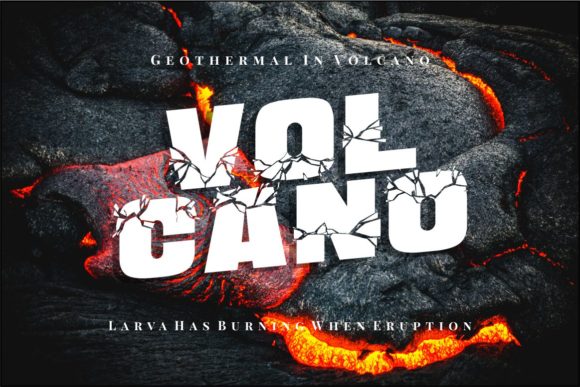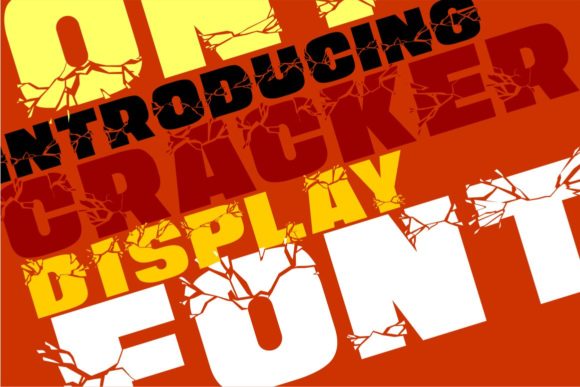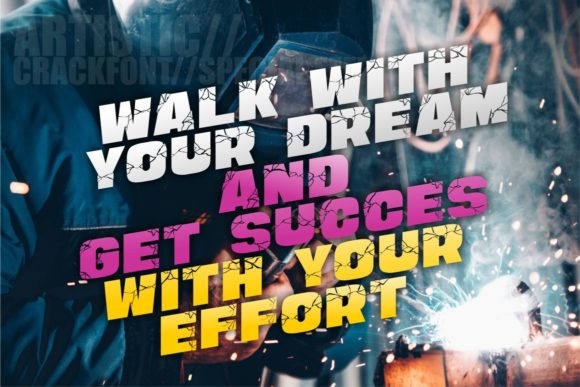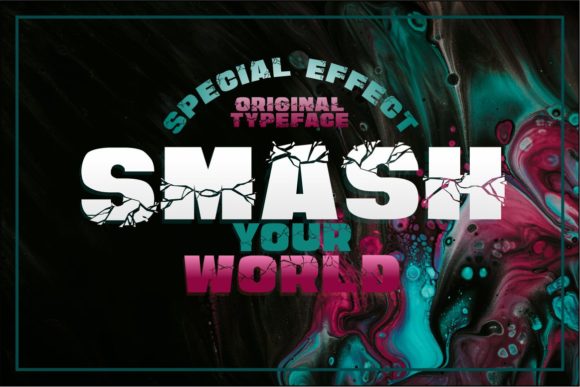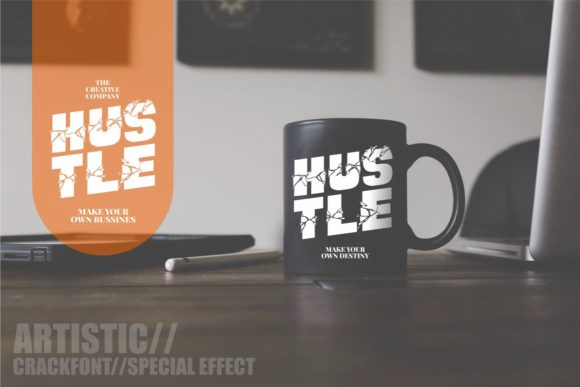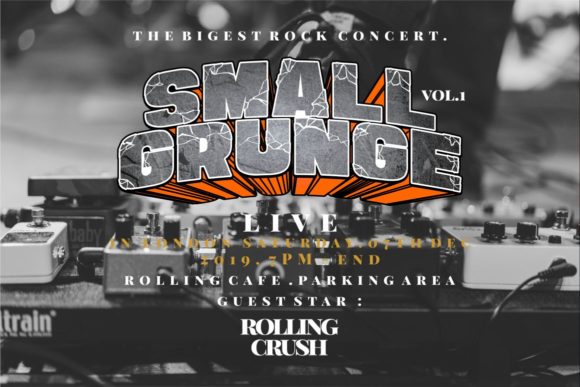
Introduction to Smash Wall Font
You know that moment when you’re working on a creative project and you’re stuck for the perfect font? The one that will make your design pop and leave a lasting impression? That’s exactly what happened to me when I stumbled upon the Smash Wall Font.
This bold, smashed, and rough display font has a unique, splattered feel that’s perfect for adding a touch of edginess to any design. With its high-quality design and transparent background, Smash Wall Font is a valuable resource for designers looking to elevate their creative projects.
Key Features of Smash Wall Font
- Perfect for graphic designers, artists, and anyone looking for a unique font
- Features a bold and edgy style with a high level of detail
- Includes a comprehensive character set, including uppercase and lowercase letters, numbers, and punctuation
Honest Review: Smash Wall Font
As a designer, I’m always on the lookout for unique and high-quality fonts to add to my design resource library. I recently came across the Smash Wall Font, and I must say, it’s a great addition to any creative project.
- The font is incredibly versatile and can be used for a variety of design projects, from logos to posters.
- The high-quality design ensures that the font looks crisp and clear on any medium.
- The transparent background option makes it easy to customize and integrate with other design elements.
- The font may not be suitable for small text, as it can be quite bold and overwhelming.
- The lack of alternate characters may limit its use in certain design scenarios.
Overall, I’m impressed with the Smash Wall Font. Its unique design and high-quality construction make it a valuable addition to any design library. While it may have some limitations, it’s a great resource for designers looking to add some edge to their creative projects.
Smash Wall Font
Tips for Getting the Most Out of Smash Wall Font
To get the most out of the Smash Wall Font, use it in bold and playful combinations to add visual interest to your designs. You can also experiment with layering and blending the font with other design elements to create unique and eye-catching effects.
The Smash Wall Font is perfect for a variety of creative projects, including posters, social media graphics, and presentations. Its high-quality design and transparent background make it easy to use in a range of different contexts.